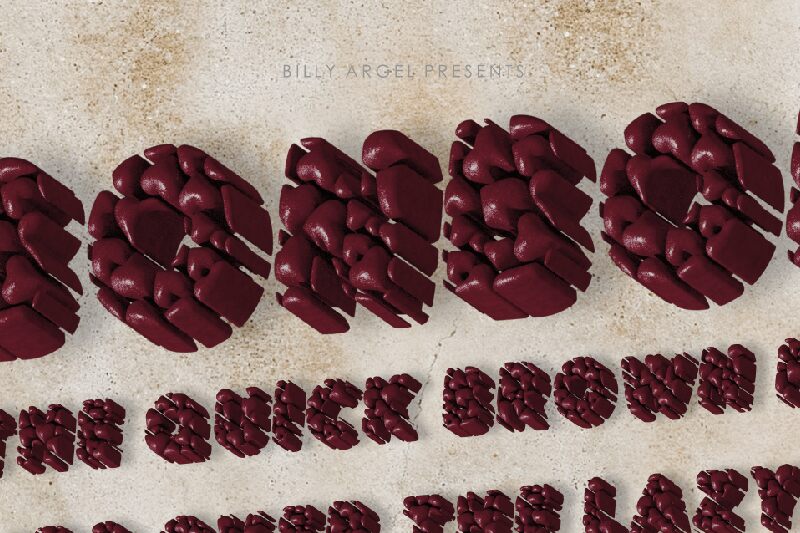
The BONBONS Black Italic font, designed by Billy Argel Fonts, is a stunning addition to the BONBONS font family. With its ultra-bold weight and decorative style, this display font is perfect for creating eye-catching and impactful designs.
Its elegant curves and unique letterforms make it suitable for a wide range of projects, such as luxury branding, event invitations, album covers, and packaging designs. Whether you want to add a touch of sophistication or make a bold statement, the BONBONS Black Italic font will surely elevate your creative endeavors.